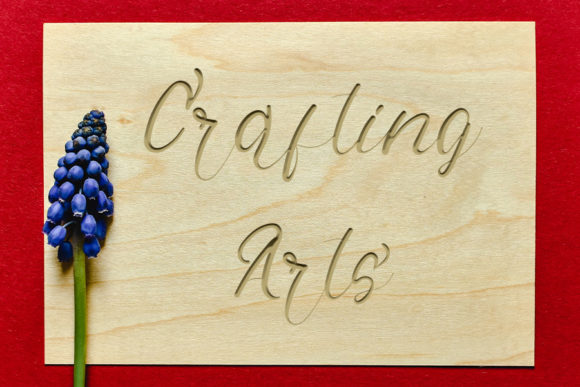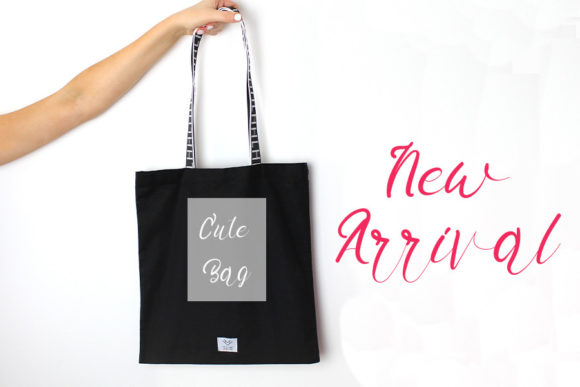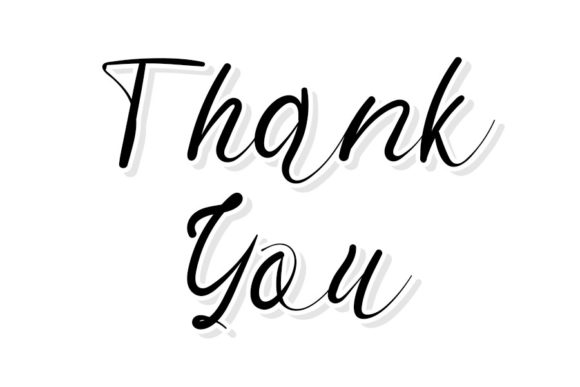
Unleash Your Inner Dreamer with the Biggest Dreamer Font
Have you ever found yourself sitting at your desk, staring at a blank page, and suddenly, a spark of creativity strikes? The ideas start flowing, and before you know it, you’re lost in a world of imagination and possibility. This is the moment when the Biggest Dreamer Font comes alive, guiding you to bring your wildest dreams to life.
This chic and whimsical handwritten font is more than just a tool – it’s a gateway to a magical world where design knows no bounds. With its modern and unique style, the Biggest Dreamer Font is the perfect companion for designers looking to add a touch of personality to their work. Whether you’re crafting a logo, creating a social media campaign, or designing a wedding invitation, this font will undoubtedly leave a lasting impression.
Biggest Dreamer Font Key Features
- Font Size: 6 styles ranging from 12pt to 72pt, with 2 additional outline styles
- Resolution: Optimized for use at 72 dpi, suitable for digital and print applications
- Unique Characteristics: Hand-drawn, whimsical, and highly customizable with a variety of swashes and ligatures
- Language Support: Supports over 200 languages, including Latin, Cyrillic, and Greek scripts
- Font Weight: Includes 5 weights: Light, Regular, Medium, Bold, and Black
Biggest Dreamer Font Review
I recently had the chance to work with the Biggest Dreamer font, and I must say it’s a unique and intriguing choice. ✨ Here are some of the things that caught my attention:
- ✨ The Biggest Dreamer font has a beautiful, playful feel to it. It’s perfect for creating a whimsical and dreamy atmosphere in your designs.
- ✨ The font is highly customizable, with a wide range of styles and weights available. This makes it easy to adapt to different design needs.
- ✨ The Biggest Dreamer font is also highly legible, even at smaller sizes, making it a great choice for body text.
- ⚠️ The Biggest Dreamer font may not be the best choice for formal or professional designs, as it can come across as too playful or childish.
- ⚠️ The font may also not be suitable for designs that require a lot of technical precision, as the irregular shapes and lines can make it difficult to read at small sizes.
Overall, I think the Biggest Dreamer font is a great choice for designers who want to add a touch of whimsy and personality to their designs. It’s a fun and creative font that can add a lot of character to your work. However, it’s not suitable for every design project, and designers should carefully consider the context and purpose of their design before using it.
The Biggest Dreamer Font is ideal for:
- Creating inspirational quotes and posters.
- Designing motivational business cards and flyers.
- Adding a touch of elegance to wedding invitations and stationery.
For optimal results, use the Biggest Dreamer Font in bold, contrasting colors and pair it with simple backgrounds to let the text take center stage.
Alternatives to Biggest Dreamer Font
Great Vibes is a modern, elegant script font that works well for titles, headings, and quotes. It has a similar flowing and handwritten feel to Biggest Dreamer Font but with a more refined and sophisticated look.
Use Great Vibes for formal and creative projects that require a touch of elegance and sophistication. It’s perfect for wedding invitations, luxury brands, and high-end advertising campaigns.
Comparison to Biggest Dreamer Font: Great Vibes is more refined and elegant, making it suitable for formal and creative projects. Biggest Dreamer Font is more playful and whimsical, making it suitable for casual and informal projects.
Pacifico is a beautiful, modern script font that works well for titles, headings, and body text. It has a similar flowing and handwritten feel to Biggest Dreamer Font but with a more relaxed and casual look.
Use Pacifico for projects that require a touch of elegance and sophistication without being too formal. It’s perfect for travel, food, and lifestyle brands, as well as creative and artistic projects.
Q: What is the font size and resolution of Biggest Dreamer Font?
The Biggest Dreamer Font is available in a range of font sizes, from 12 to 72 points. The recommended resolution for optimal display is 300 DPI (dots per inch) for print applications and 96 DPI for screen applications.
Q: Can I customize Biggest Dreamer Font to fit my design needs?